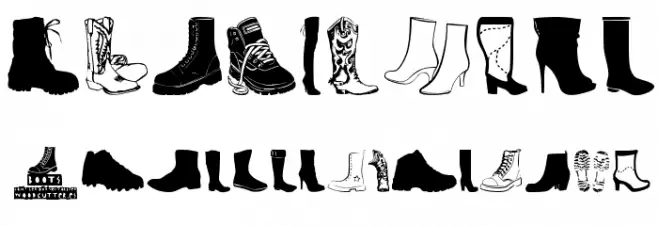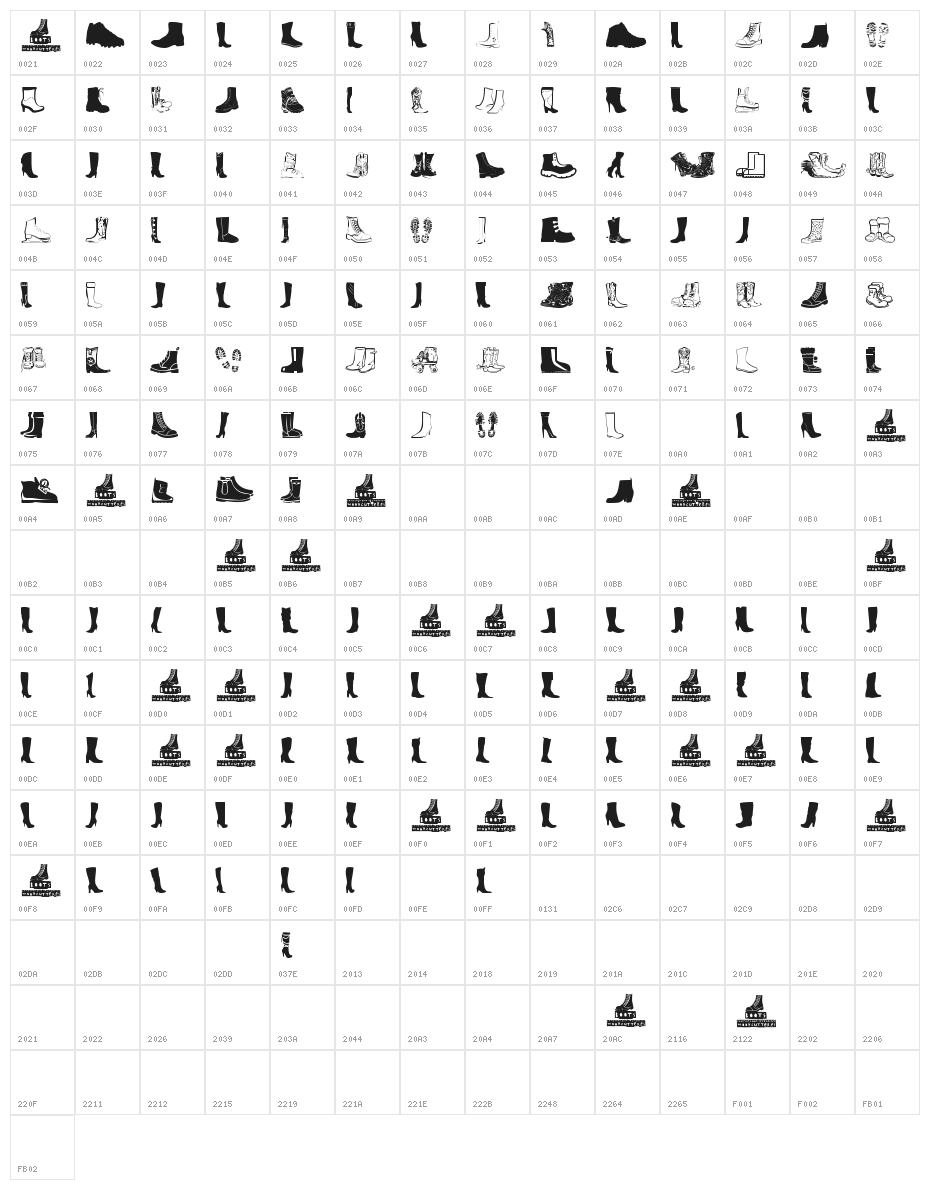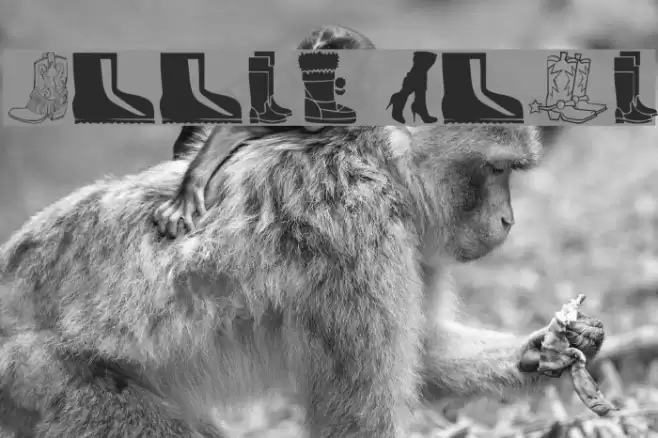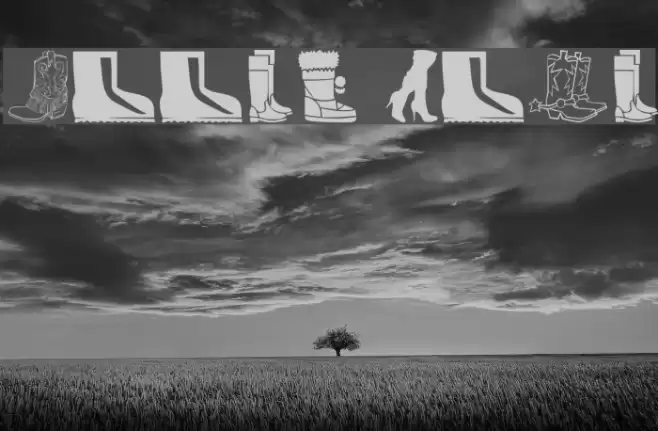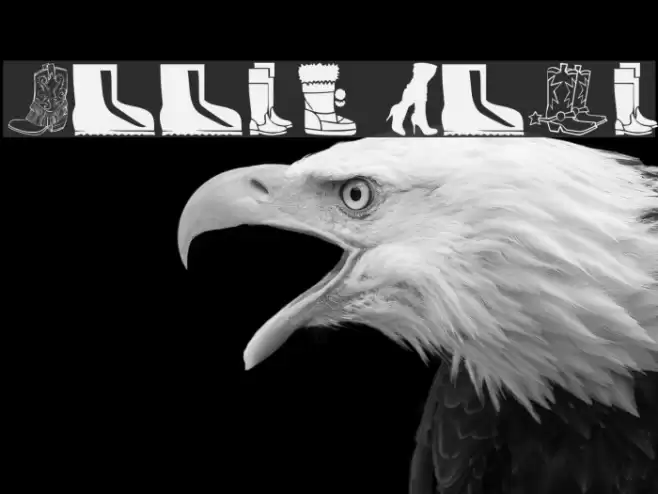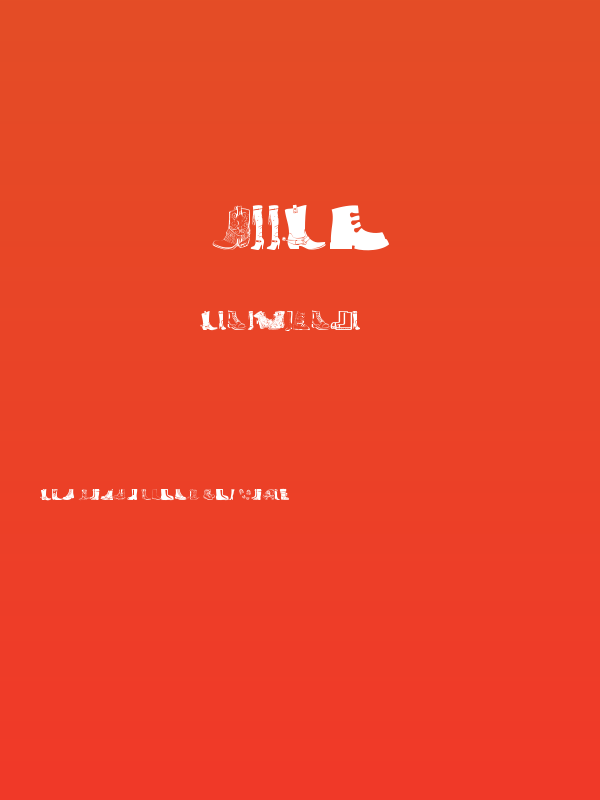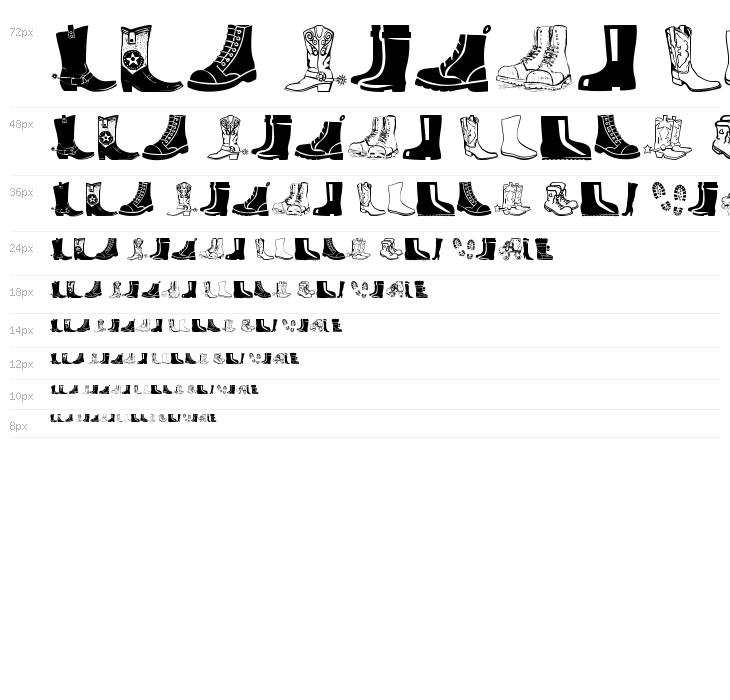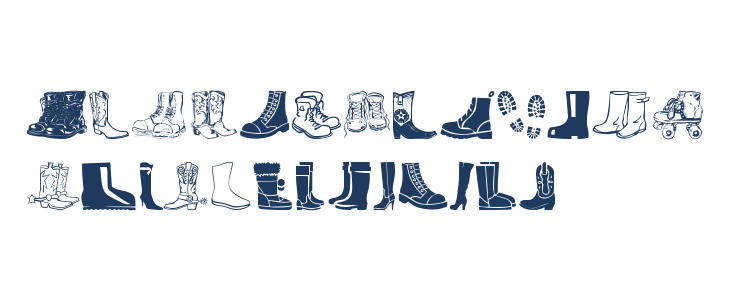
Boots Font
Boots Description
A playful, illustrative decorative font composed of various boot and shoe silhouettes in place of standard letterforms, featuring a mix of solid black and outlined icons with diverse boot styles and orientations.
| Overall Style | Playful, Decorative, Thematic |
| Use Case | Logos, Headlines, Posters, Themed graphics |
| Proposed Projects | ChildrenΓ’β¬β’s books, fashion branding, playful posters, themed event invitations, novelty signage. |